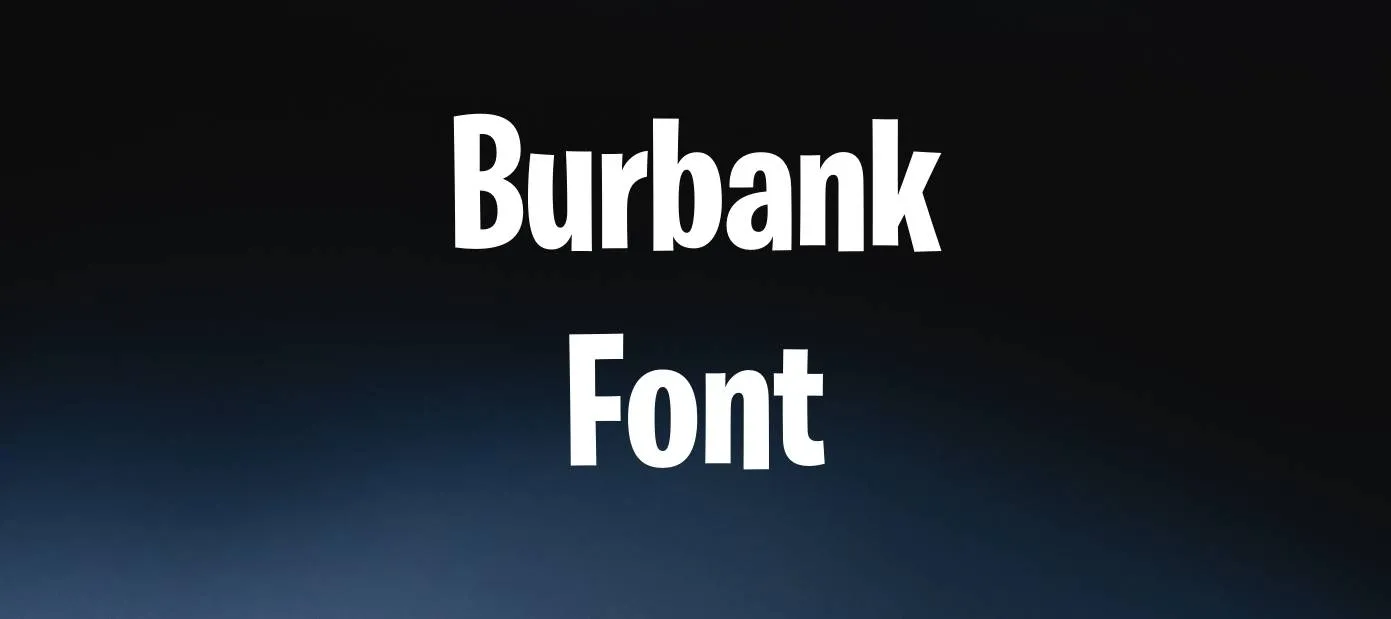
All Burbank Fonts . the font used for the video game logo is burbank big condensed black designed by tal leming. Complete suites of faces in this genre, however, are nearly impossible to. the font of the logo of the video game is burbank big condensed black designed by a man. Burbank is a fun typeface. Burbank big in three widths with four upright weights each, complemented by burbank small, a variation. it’s a playful and adaptable typeface that comes in 20 styles, including burbank big, which features three widths and four weights for each upright style. The burbank family spans 20 styles; the name of the font that is used in the lettering for the fortnite logo is a typeface by the name of burbank big condensed. burbank can best be described as an animated font, meaning it’s roots go back to animation style lettering that uses bent lines, uneven letter. the logo for the video game fortnite uses a customized setting of burbank big condensed black, a typeface created.
the name of the font that is used in the lettering for the fortnite logo is a typeface by the name of burbank big condensed. it’s a playful and adaptable typeface that comes in 20 styles, including burbank big, which features three widths and four weights for each upright style. The burbank family spans 20 styles; the font of the logo of the video game is burbank big condensed black designed by a man. Burbank is a fun typeface. the logo for the video game fortnite uses a customized setting of burbank big condensed black, a typeface created. Burbank big in three widths with four upright weights each, complemented by burbank small, a variation. Complete suites of faces in this genre, however, are nearly impossible to. burbank can best be described as an animated font, meaning it’s roots go back to animation style lettering that uses bent lines, uneven letter. the font used for the video game logo is burbank big condensed black designed by tal leming.
All Burbank Fonts it’s a playful and adaptable typeface that comes in 20 styles, including burbank big, which features three widths and four weights for each upright style. Complete suites of faces in this genre, however, are nearly impossible to. the font of the logo of the video game is burbank big condensed black designed by a man. Burbank big in three widths with four upright weights each, complemented by burbank small, a variation. Burbank is a fun typeface. it’s a playful and adaptable typeface that comes in 20 styles, including burbank big, which features three widths and four weights for each upright style. the logo for the video game fortnite uses a customized setting of burbank big condensed black, a typeface created. The burbank family spans 20 styles; burbank can best be described as an animated font, meaning it’s roots go back to animation style lettering that uses bent lines, uneven letter. the font used for the video game logo is burbank big condensed black designed by tal leming. the name of the font that is used in the lettering for the fortnite logo is a typeface by the name of burbank big condensed.
Burbank Big Condensed шрифт All Burbank Fonts the logo for the video game fortnite uses a customized setting of burbank big condensed black, a typeface created. the font used for the video game logo is burbank big condensed black designed by tal leming. Complete suites of faces in this genre, however, are nearly impossible to. the name of the font that is used in. All Burbank Fonts.
Reflective Letters & Numbers Solid Burbank Font All Burbank Fonts The burbank family spans 20 styles; it’s a playful and adaptable typeface that comes in 20 styles, including burbank big, which features three widths and four weights for each upright style. the logo for the video game fortnite uses a customized setting of burbank big condensed black, a typeface created. the font used for the video game. All Burbank Fonts.
Burbank Big Condensed Font Fonts Hut All Burbank Fonts Burbank big in three widths with four upright weights each, complemented by burbank small, a variation. the logo for the video game fortnite uses a customized setting of burbank big condensed black, a typeface created. it’s a playful and adaptable typeface that comes in 20 styles, including burbank big, which features three widths and four weights for each. All Burbank Fonts.
Burbank Script Font YouWorkForThem All Burbank Fonts the name of the font that is used in the lettering for the fortnite logo is a typeface by the name of burbank big condensed. Burbank is a fun typeface. Burbank big in three widths with four upright weights each, complemented by burbank small, a variation. Complete suites of faces in this genre, however, are nearly impossible to. . All Burbank Fonts.
Burbank Big Wide Medium Font FontYukle All Burbank Fonts Complete suites of faces in this genre, however, are nearly impossible to. Burbank is a fun typeface. burbank can best be described as an animated font, meaning it’s roots go back to animation style lettering that uses bent lines, uneven letter. the name of the font that is used in the lettering for the fortnite logo is a. All Burbank Fonts.